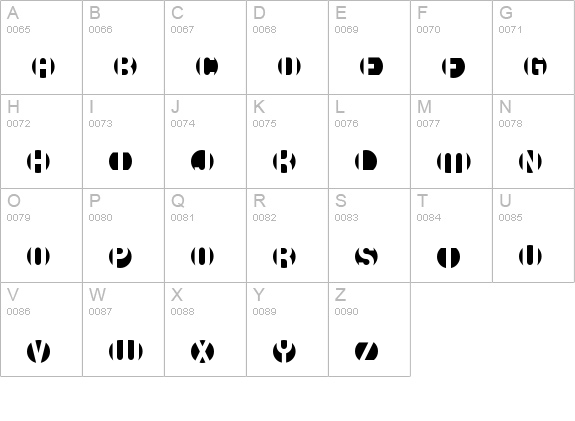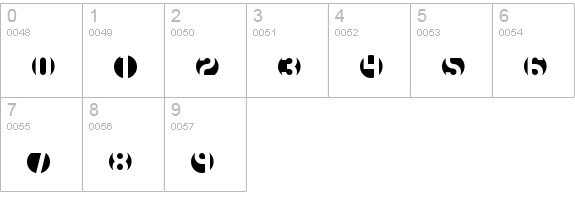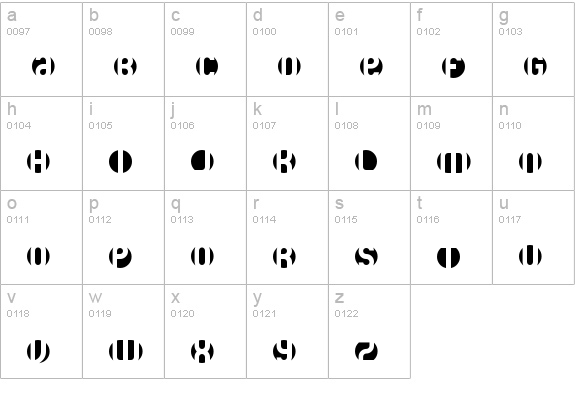
DB Layer 3 BRK Font Details
DB Layer 3 BRK font is a bold and striking typeface that exudes power and modernity. With its sharp edges and intricate design, this font is perfect for making a bold statement in your designs. Whether you are working on a poster, logo, or any other creative project, DB Layer 3 BRK font is sure to grab attention and leave a lasting impression. The best part is that DB Layer 3 BRK font is completely free to download at FontsMarket.com. You can easily add this impressive font to your collection without any cost, making it a valuable resource for your design projects. Don't miss out on the opportunity to enhance your designs with the dynamic and eye-catching DB Layer 3 BRK font today!